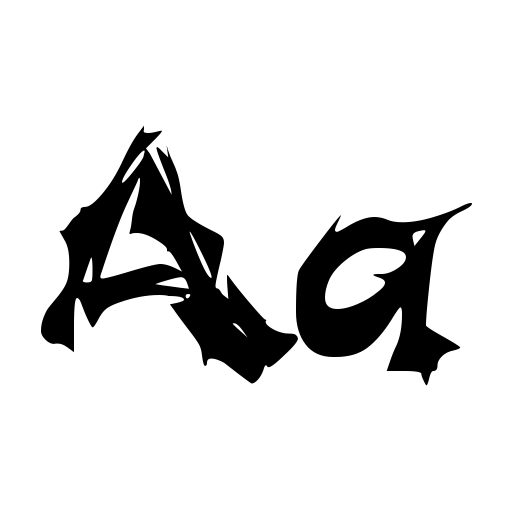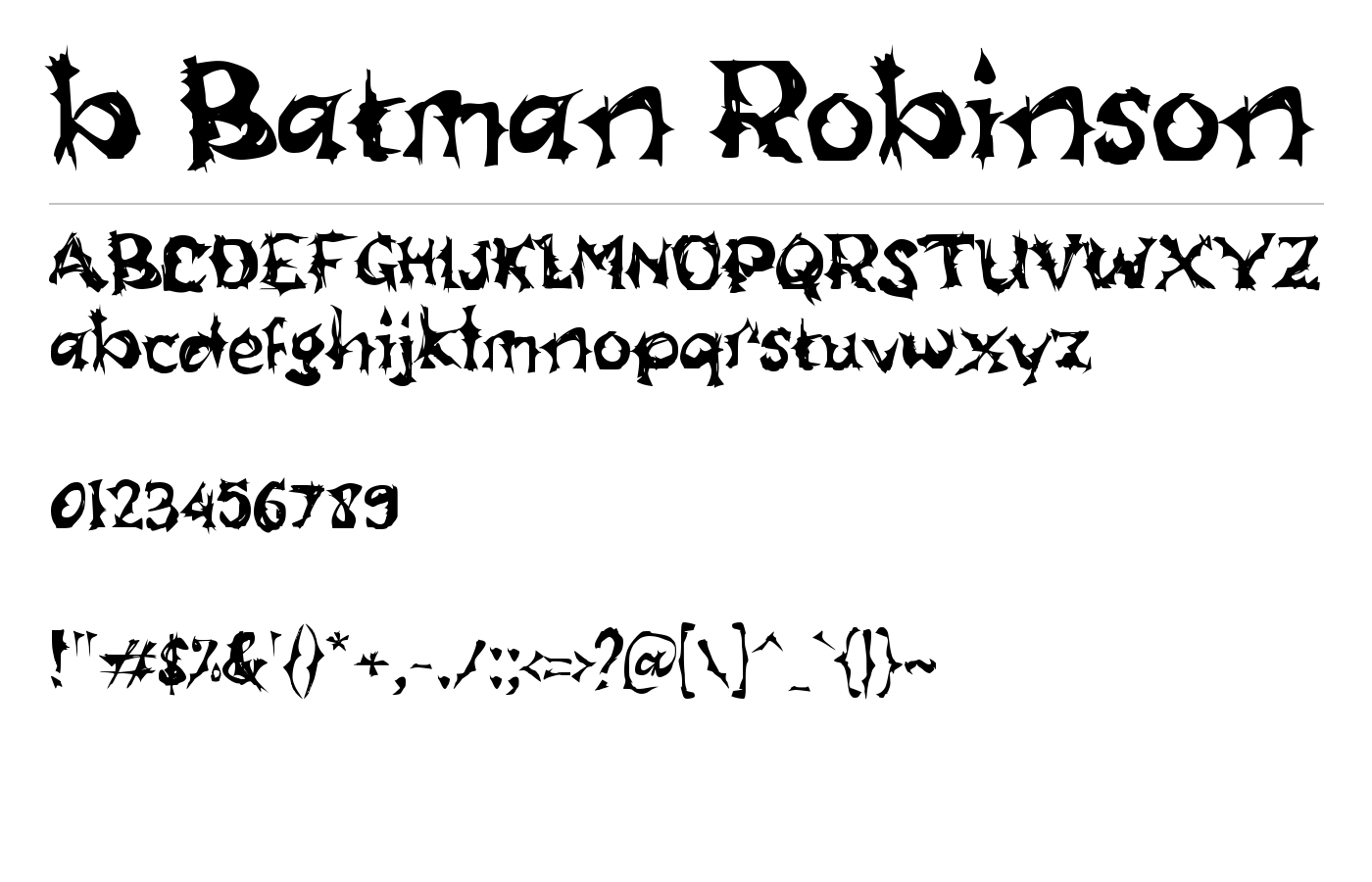
Batman Robinson is a bold, decorative serif typeface with sharp, irregular, thorn-like edges that give it a striking, gothic character. Its playful yet eerie style suits creative projects needing a distinctive, adventurous vibe, making it ideal for Halloween-themed designs, posters, or branding that demands a dramatic, eye-catching look. This font works best in headlines or logos where its unique, jagged forms can stand out and capture attention.
b Batman Robinson Font
About b Batman Robinson Font